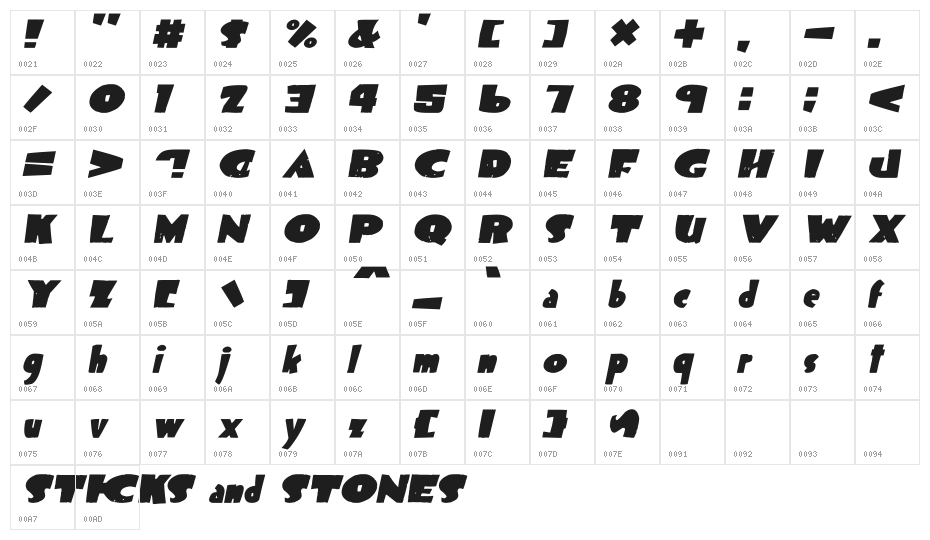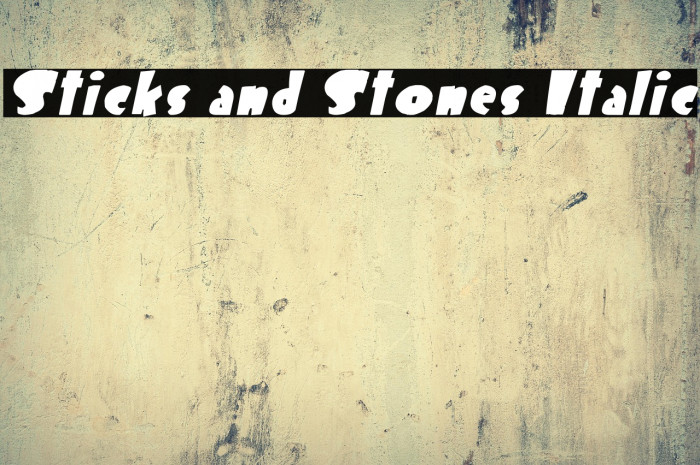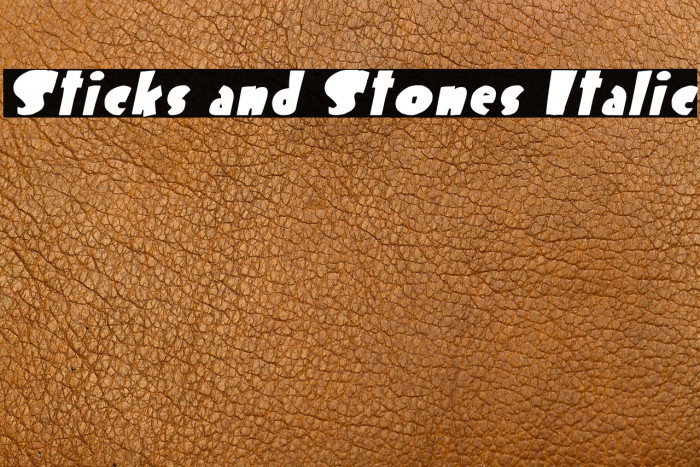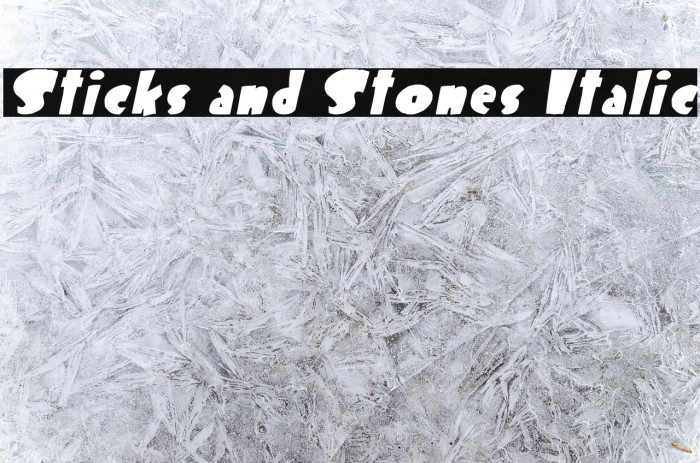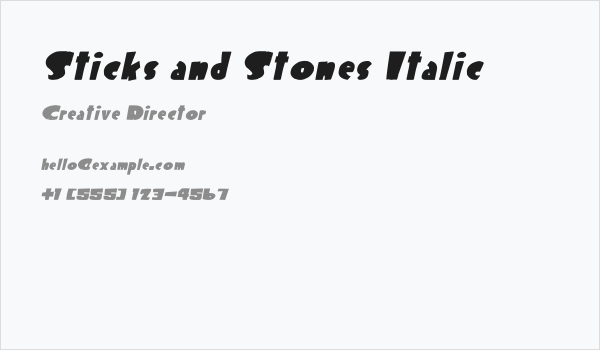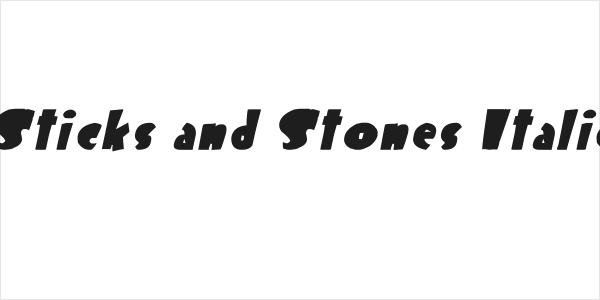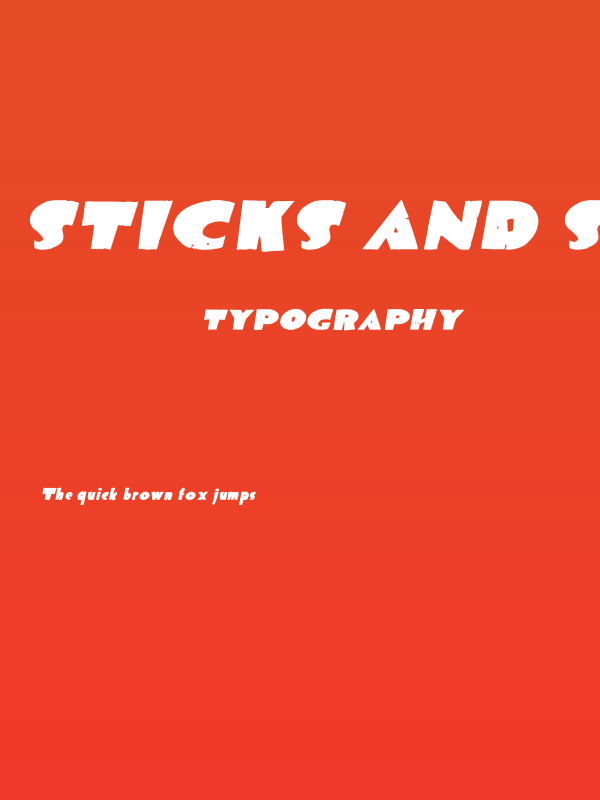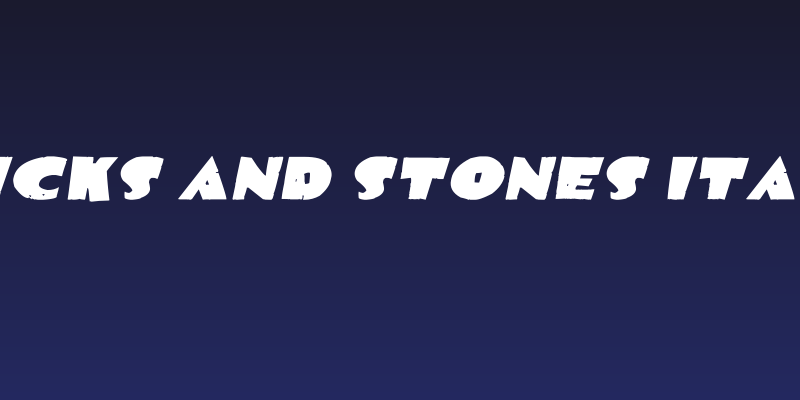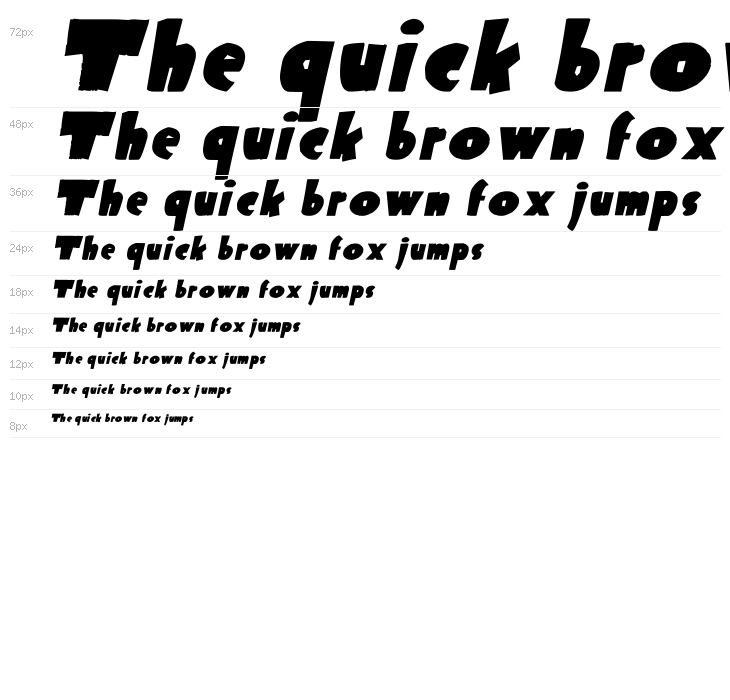
Sticks and Stones Italic Font
Sticks and Stones Italic Description
This font features a bold and dynamic style with a distinctive italic slant. The characters are robust and slightly irregular, giving a hand-crafted, artistic feel. The uppercase letters are particularly striking, with strong, angular lines and a sense of movement. The lowercase letters maintain the boldness, with unique shapes that add to the font's playful and energetic personality. Numbers and special characters follow the same bold and dynamic design, making them stand out. This font's rough edges and varied stroke widths contribute to its unique, edgy appearance.
| Use Case | Logos, Posters, Headlines |
| Proposed Projects | Ideal for posters, logos, and branding projects that require a bold, artistic touch. |